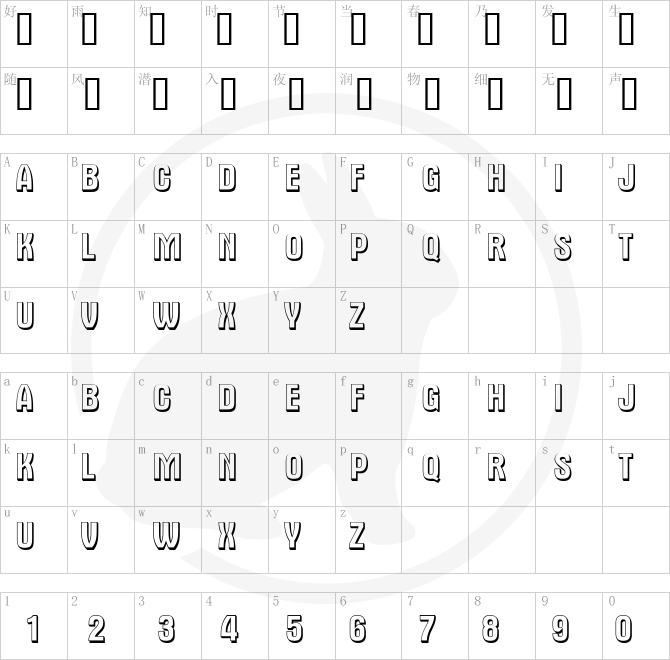
- Font Name:a_AlternaTitul3D
a_AlternaTitul3D.ttf is a very beautiful artistic font, a_AlternaTitul3D.ttf is widely used in the design and printing of various books and pictures,a_AlternaTitul3D.ttf has a strong visual impact,a_AlternaTitul3D.ttf is a commonly used font in newspapers, magazines and books, and is used in posters, e-commerce Poster design, store design, logo design, font design and other fields.a_AlternaTitul3D.